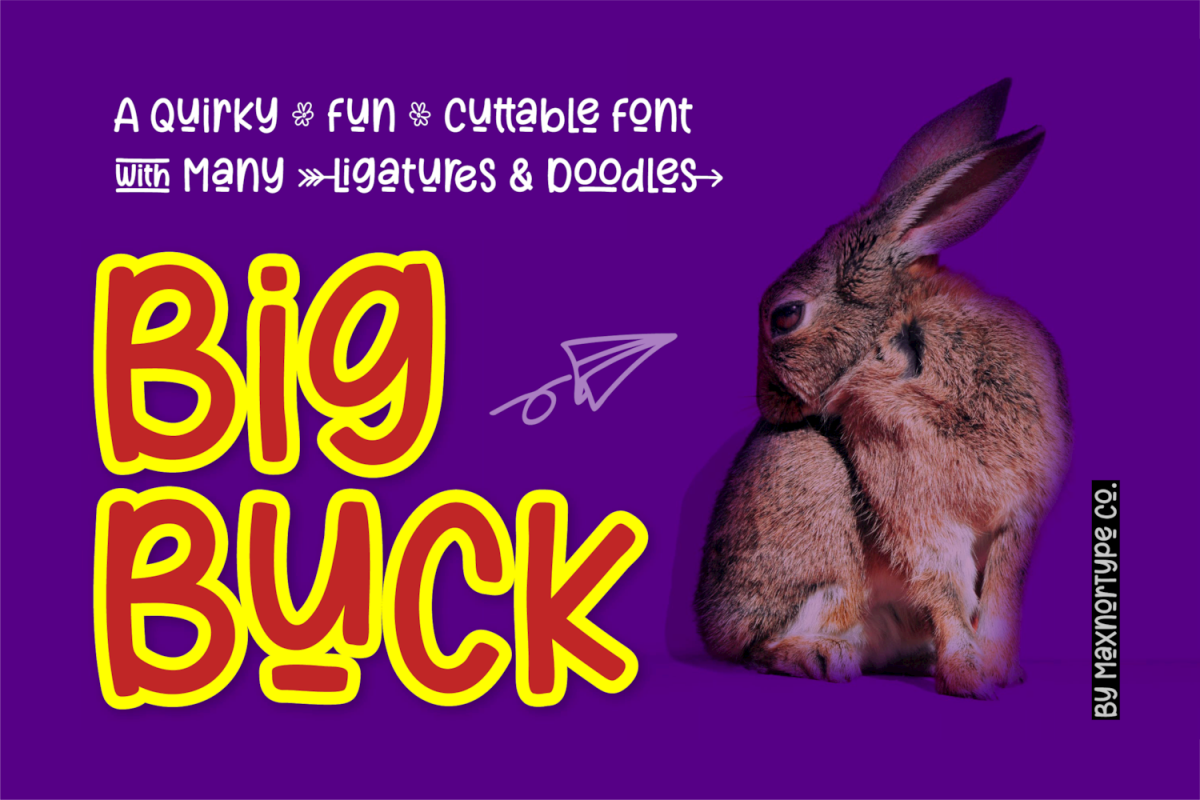
BigBuck - a Quirky Fun Cuttable Font
BigBuck-Regular
Introducing BigBuck, a fun and quirky font enriched with plenty of ligatures and fancy doodles. It can be used to design your quotes, craft, t-shirt, watermark, social media, greeting cards, and much more!
This font contains uppercase, lowercase, numeral, and punctuation, with multilingual support, OpenType Features: Contextual Alternates, Standar Ligatures and Discretionary Ligatures!